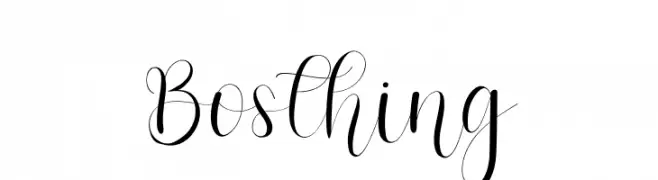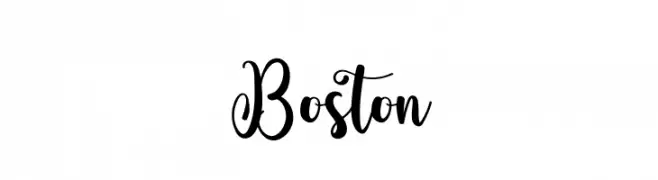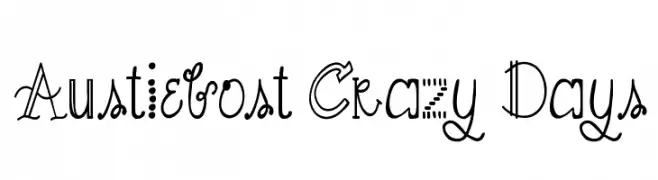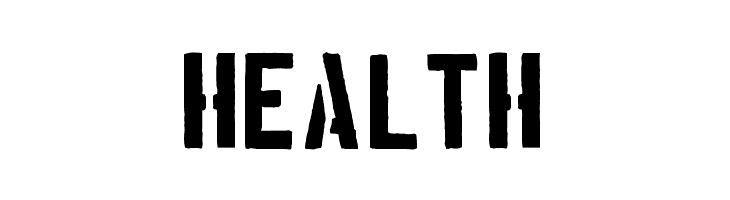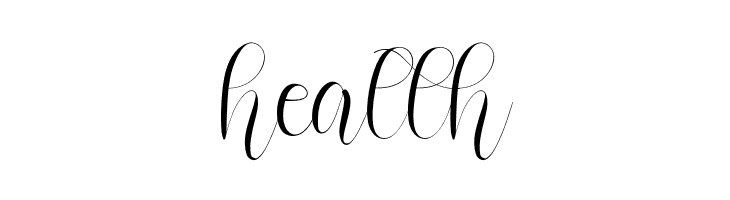
An elegant script font with flowing, interconnected letters and ornate flourishes.
A playful, connect-the-dots style font with a whimsical, hand-drawn appearance.
Elegant script font with flowing, decorative style.
A bold, stencil-style font with an industrial and rugged appearance.
A playful, handwritten font with bold, expressive strokes.
A whimsical and eclectic font with playful, decorative elements.